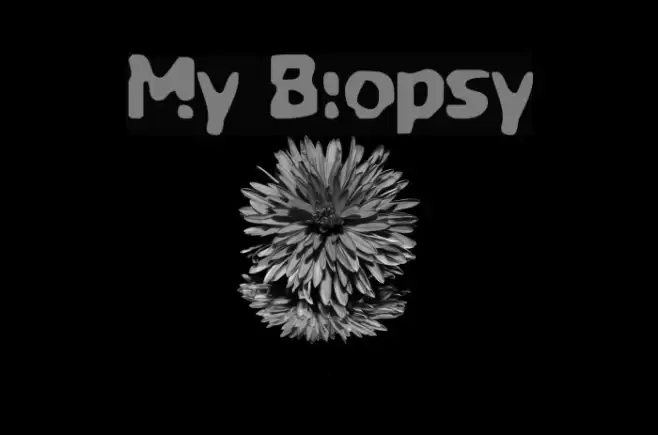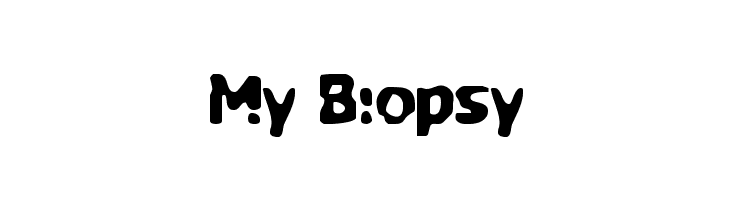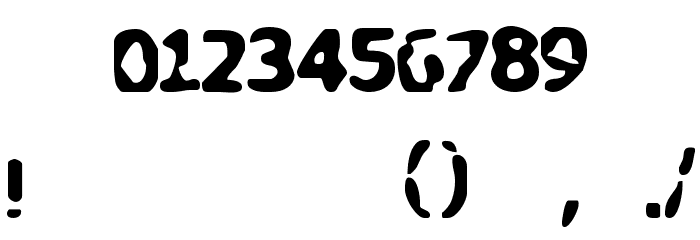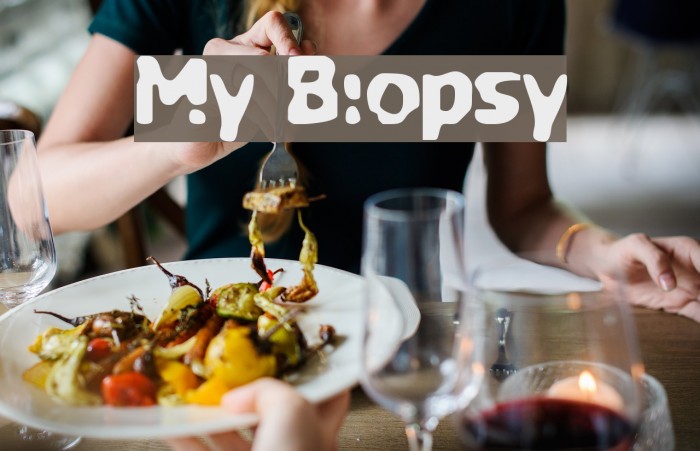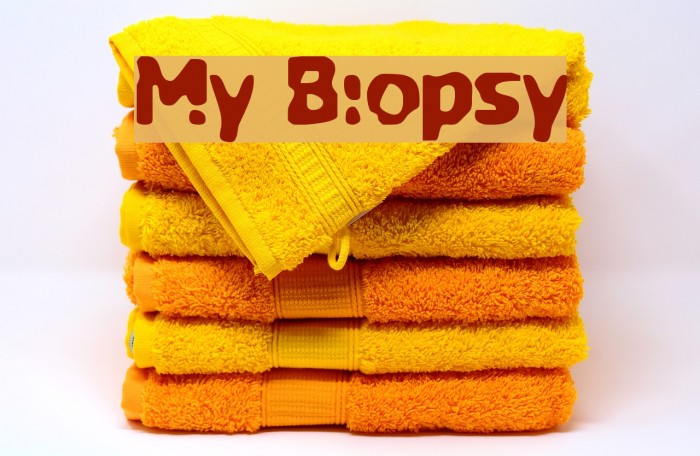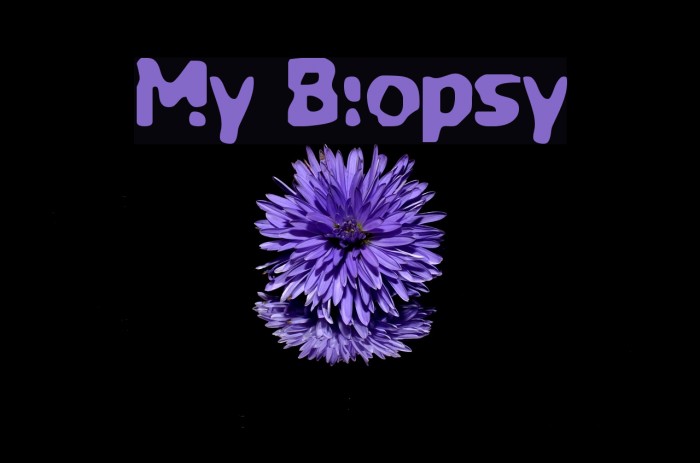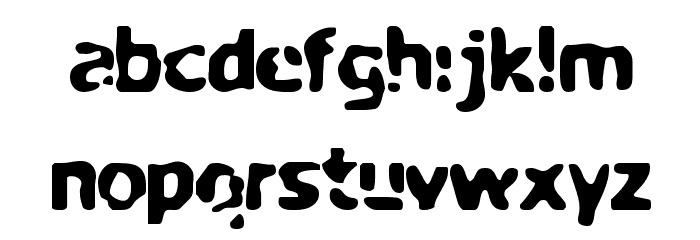
My Biopsy Font
My Biopsy Description
This font features a bold and playful design with a distinctly organic feel. The characters are rounded and irregular, giving them a hand-drawn appearance. The uppercase and lowercase letters maintain a consistent style, with exaggerated curves and a slightly uneven baseline that adds to the whimsical nature of the font. The numbers and special characters follow the same playful aesthetic, making the font suitable for creative and informal projects. The overall look is unique and eye-catching, perfect for designs that require a touch of fun and creativity.
A bold, playful font with an organic, hand-drawn style from Distorted Eroded fonts.
- Proposed Projects: Ideal for children's books, playful branding, creative posters, and informal invitations.
- Overall Style: Playful, Organic, Hand-drawn